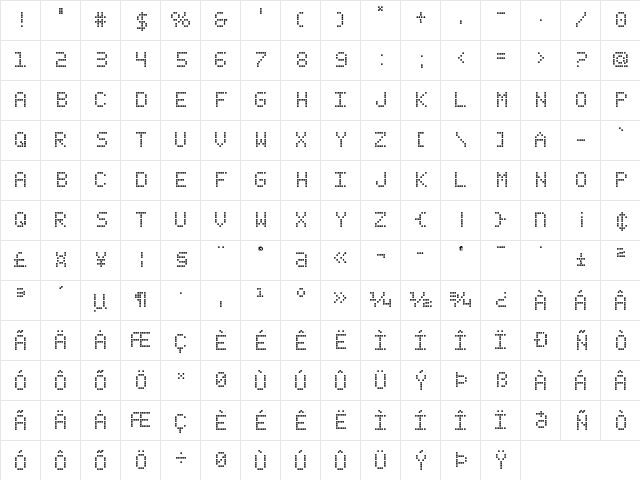
Fanfare Ticker Regular
Design Context for Fanfare Ticker Typeface
Fanfare Ticker takes a measured approach to typography — its balanced proportions and neutral character make it a reliable workhorse for both digital and print work.